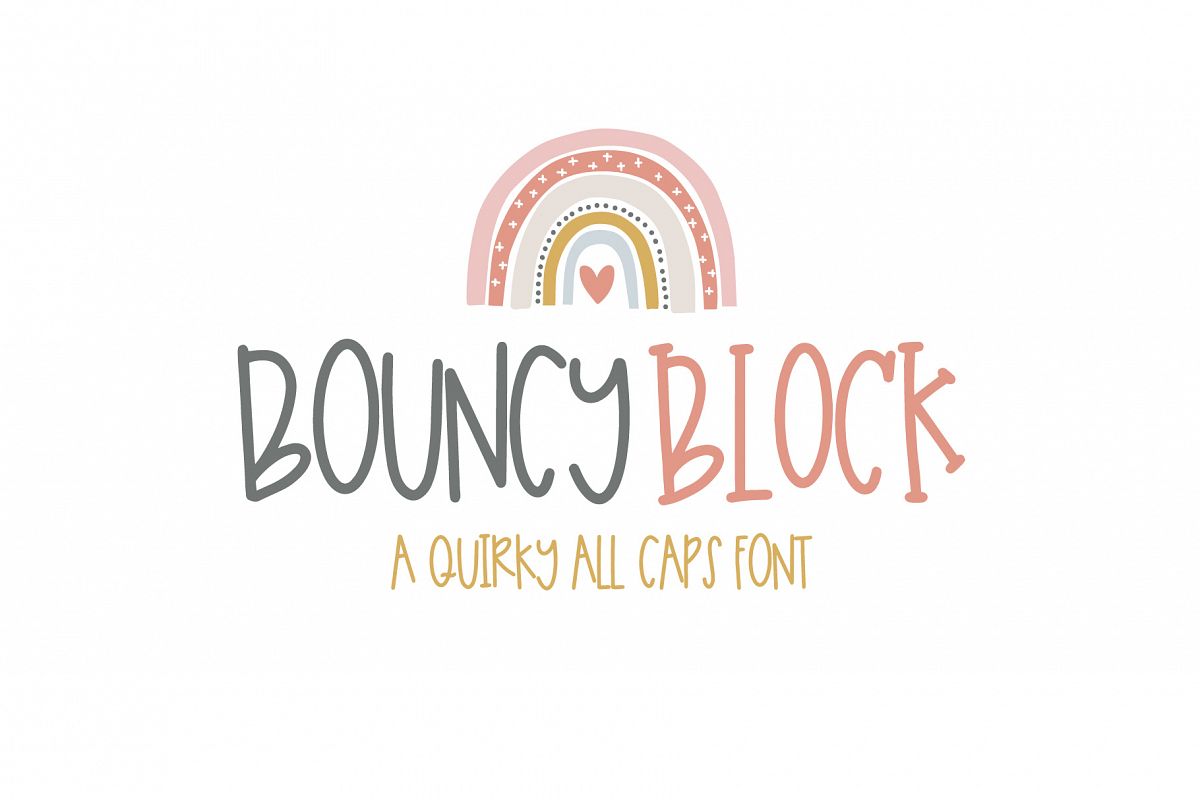
Bouncy Block
BouncyBlockSerifRegular
BouncyBlockRegular
Quirky and New Sans and Serif font from OTSS! Perfect for nursery graphics, tee designs, holiday or greeting cards and so much more!